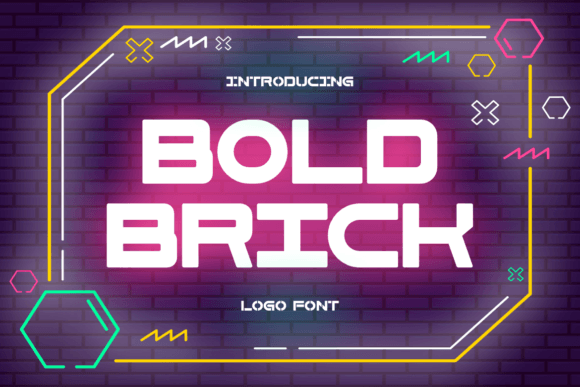
Bold Brick: A Display Typeface for Editorial Impact
When your headline needs to land—not just appear—Bold Brick delivers. It’s not a workhorse body font or a delicate script meant for whispers. Bold Brick is a display typeface built for presence: thick, grounded, and unapologetically modern. Its robust lines and tightly tuned proportions give it architectural confidence—like brickwork translated into letterforms—without sacrificing clarity or editorial polish.
In editorial design, every typographic choice shapes how readers enter your content. Bold Brick doesn’t ask for attention—it commands space with intention. That makes it especially effective where visual hierarchy matters most: magazine covers, ebook title pages, newsletter banners, and chapter openers. Its weight and structure hold up beautifully at large sizes on screen and in print, whether you’re designing a digital magazine cover for retina displays or a printed wedding guide with foil-stamped typography.
Where Bold Brick Earns Its Place in Your Layouts
Bold Brick excels where contrast and clarity intersect. Use it for:
- Cover text and mastheads—its boldness anchors publication identity without competing with photography or illustration;
- Blog headers and section titles—it signals shifts in tone or topic while reinforcing brand consistency across posts;
- Ebook and guide titles—especially in lifestyle, coaching, or creative niches where authority and approachability must coexist;
- Quote graphics and pull-outs—its sturdy forms lend gravitas to insights, testimonials, or key takeaways;
- Printable worksheets and lead magnets—it adds tactile energy to downloadable resources, helping them stand out in crowded inboxes.
It’s less suited for extended body copy. Bold Brick is a display font—not a reading font—and that distinction matters. Its strength lies in framing, not filling. Let it introduce, emphasize, or conclude. Then step back and let your carefully chosen serif or sans serif body type carry the narrative forward.
Pairing Bold Brick Thoughtfully
Typography is relational. Bold Brick gains resonance when paired with complementary voices. For editorial projects, consider these pairings:
- A warm, humanist serif (like Merriweather or Tiempos Text) for body copy—adds readability and quiet sophistication against Bold Brick’s assertive presence;
- A clean, neutral sans serif (such as Inter or Lato) for captions, navigation, or subheads—creates rhythm without visual clutter;
- A restrained monospace for code snippets or technical sidebars—introduces subtle contrast while maintaining functional clarity.
Avoid pairing Bold Brick with other heavy display fonts or decorative scripts—they’ll compete rather than converse. Its personality is confident but not loud; let supporting type breathe around it.
Practical Considerations Across Formats
Bold Brick renders reliably across environments. On screens, its generous x-height and open counters ensure legibility even at smaller display sizes—ideal for mobile-optimized newsletters or responsive blog headers. In PDF exports, it embeds cleanly with standard OpenType features, preserving kerning and spacing integrity. For print, its strong stroke weight prevents ink spread on uncoated stock, making it a smart choice for artisanal guides, planners, or limited-run zines.
Real-World Editorial Uses
A wellness blogger might use Bold Brick for episode titles in a podcast newsletter—pairing it with a soft serif body font to balance warmth and authority. A cookbook creator could set recipe titles in Bold Brick and ingredient lists in a crisp sans serif, creating intuitive visual pacing between discovery and execution. A digital magazine covering independent design might feature Bold Brick on its cover and in section dividers, then switch to a refined serif for long-form interviews—using typography to signal shifts in voice and depth.
In a printable productivity planner, Bold Brick works well for weekly headers or habit-tracking categories—its solidity reinforces commitment and structure. For a coaching workbook, it lends credibility to exercise titles and reflection prompts without feeling cold or corporate. Even in social media graphics—where attention spans are fleeting—Bold Brick’s immediate impact helps quotes or announcements cut through noise.
Bold Brick isn’t about trend-chasing. It’s about intentionality—choosing a display font that reflects your publication’s values: clarity, confidence, and craft. Whether you’re launching a new digital magazine or refining your newsletter’s visual voice, Bold Brick offers more than style. It offers structure. It offers recognition. And above all, it offers a way to say, unmistakably, this matters.